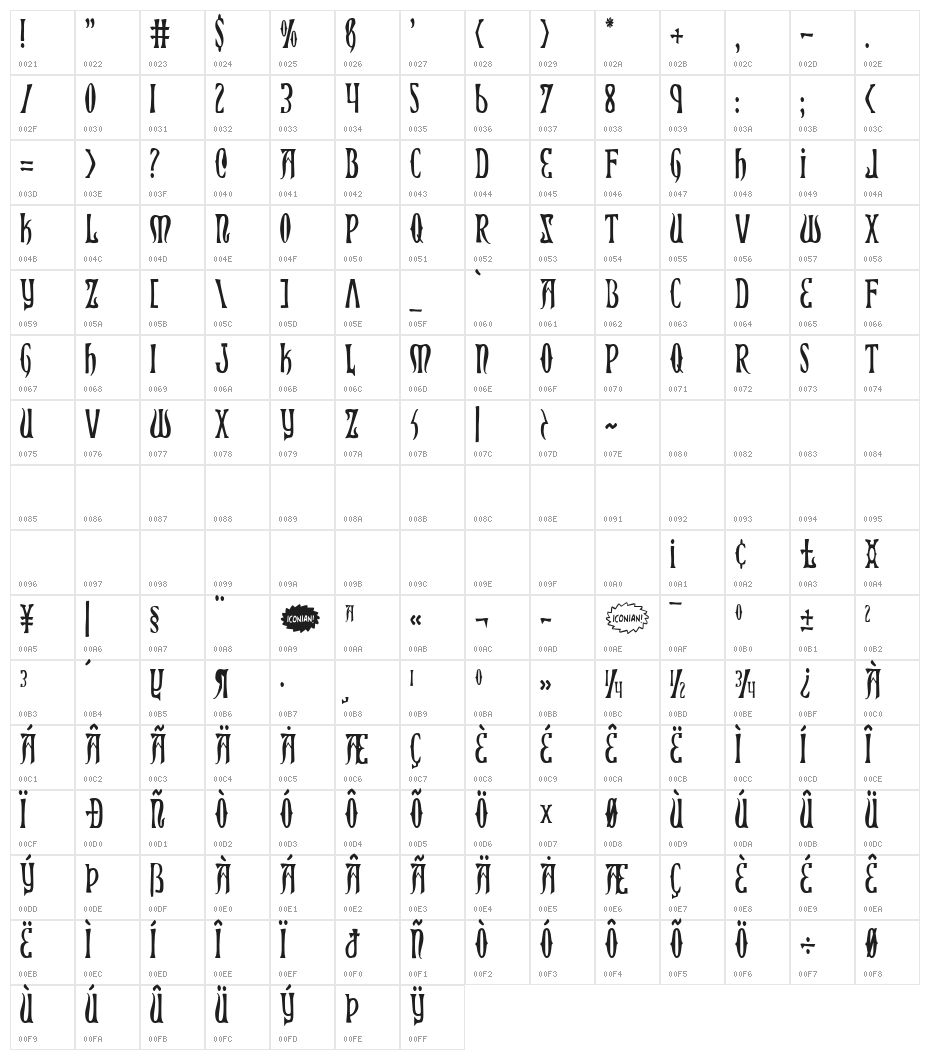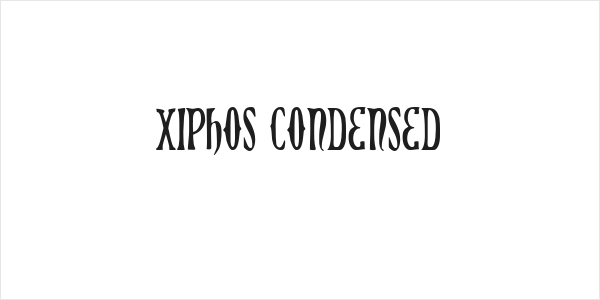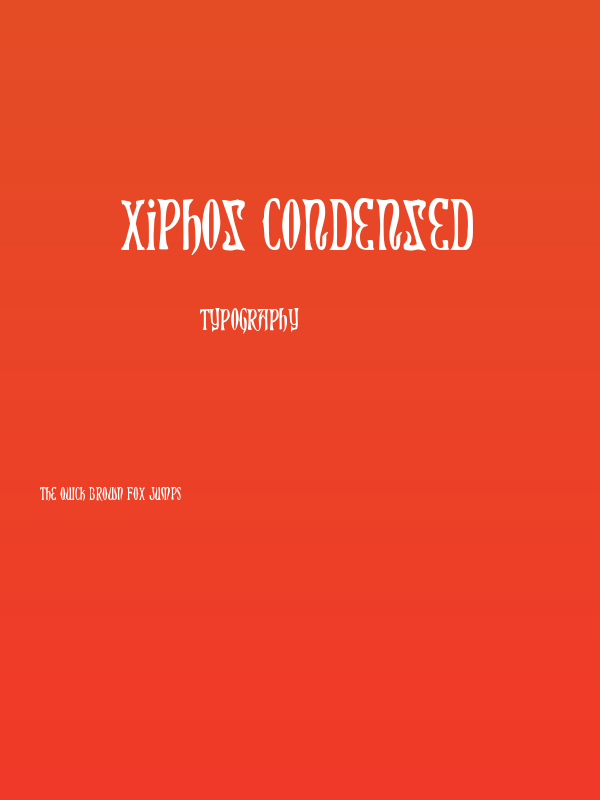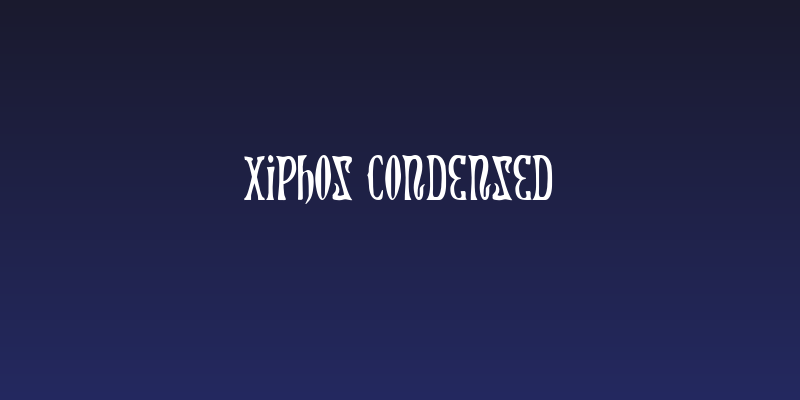
Xiphos Condensed Font
Xiphos Condensed Description
This font features a bold and condensed style with a distinct decorative flair. The uppercase letters exhibit sharp, angular serifs and unique curves that give it a dramatic and eye-catching appearance. The lowercase letters maintain the same boldness, with some characters having elongated strokes that add to its distinctiveness. Numbers follow the same stylistic cues, ensuring consistency across all characters. Special characters are also designed with the same bold and decorative elements, making this font suitable for attention-grabbing designs.
| Proposed Projects | Ideal for poster designs, branding, logos, and any project requiring a bold, dramatic typeface. |